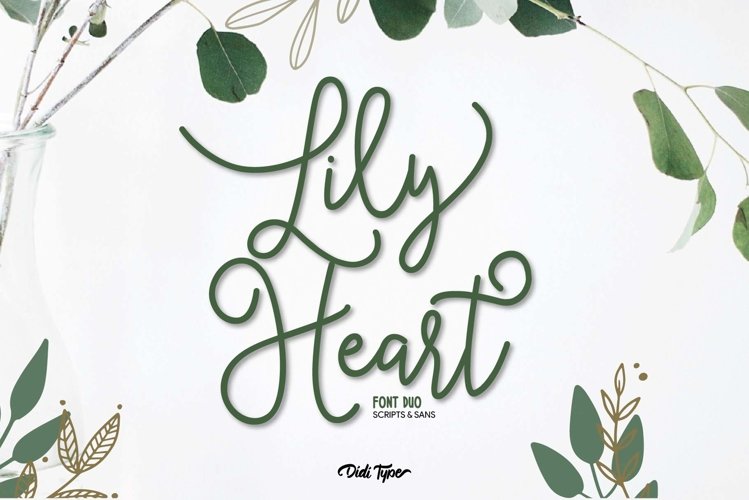
Lily Heart Font Duo | Script & Sans
Lily Heart-Sans
Lily Heart-Script Monoline
Lily Heart is a elegant and cute Script Calligraphy font. Lily Heart has unique and well balance characters. It features an authentic monoline style and it is perfect for logos, stationery, quotes, book covers, magazines, branding and much more!